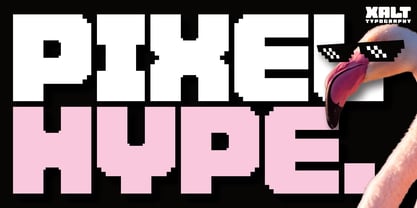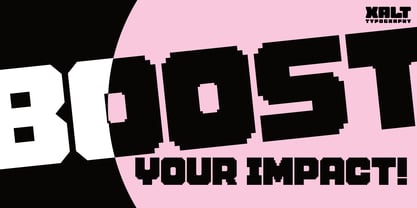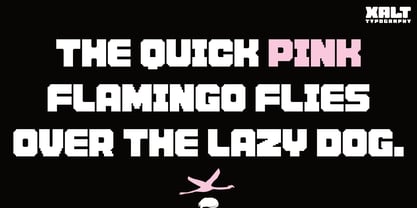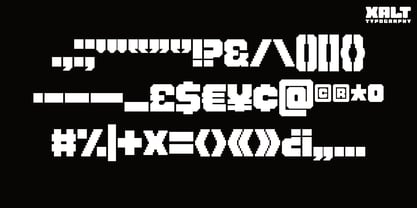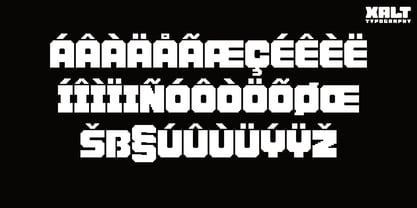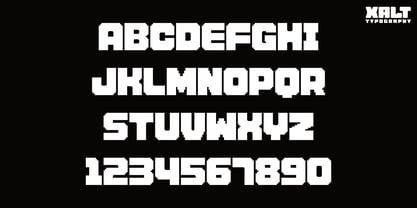
Pixel Hype
The Pixel Hype Font Family was designed by Asa Childress and published by XALT Typography. Pixel Hype contains 1 styles.
Pixel Hype is an excellent choice for anyone looking to make an impact with their messages, wherever they are displayed!
It's bold, blocky and packed with character, ready to bring your message to life with perfectly-pixelated personality.
Pixel Hype was designed with meticulous attention to detail, ensuring every pixel is exactly where it should be. Every character has been crafted to blend clarity with maximum visual impact, creating a display font that's both fresh and dependable. No matter what you type, it delivers your message with power and style.
Super versatile: This bold pixel display font is perfect for merch, marketing, branding, social media graphics, packaging and more.
Unique characteristics: With its distinctive pixel-built structure and personality, Pixel Hype brings a fresh twist to pixelated fonts.
Extensive punctuation: All essential punctuation marks are included, carefully crafted to match the pixel-perfect style of the typeface.
Multi-lingual support: Extended Latin coverage for French, Spanish, Portuguese, Italian, German and more.